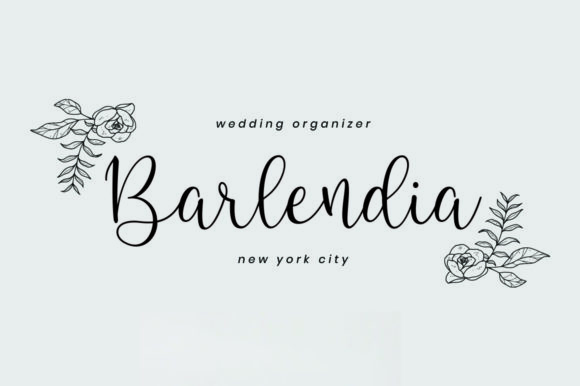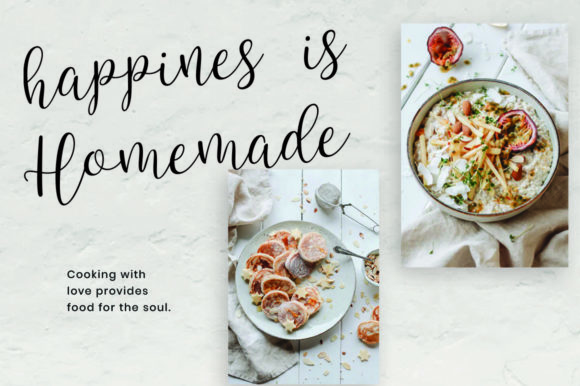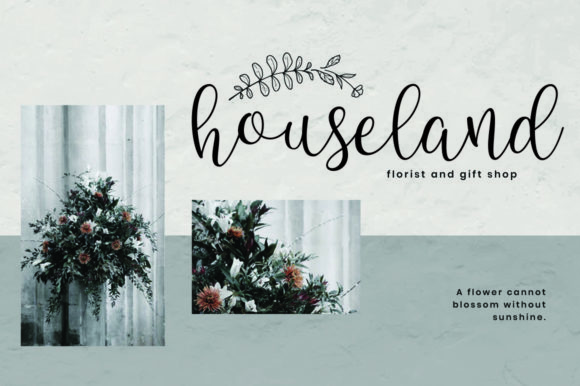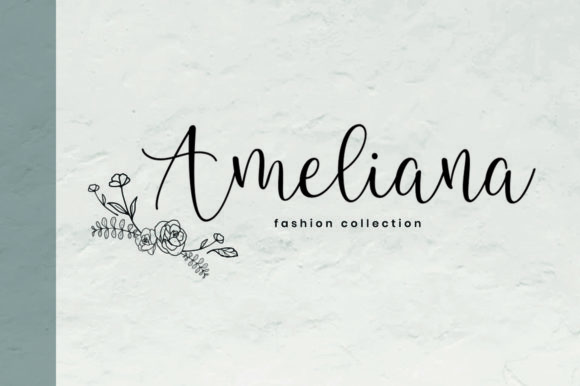
Lesillia Font
About Lesillia Font
Lesillia is an elegant and down-to-earth script font with a botanical vibe. It will look great on spring, summer or nature-themed crafts!